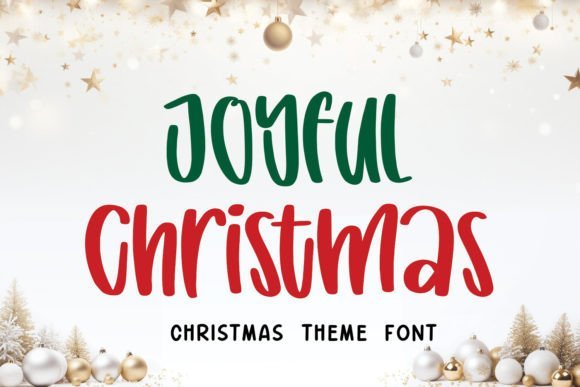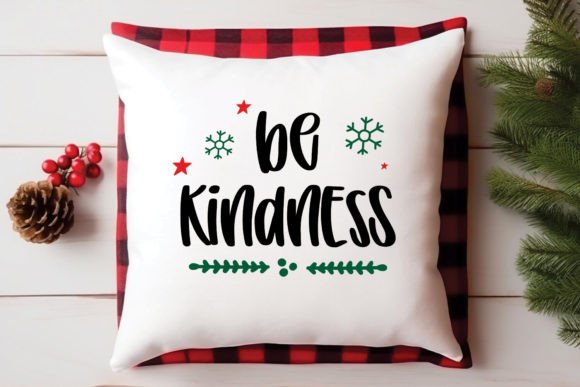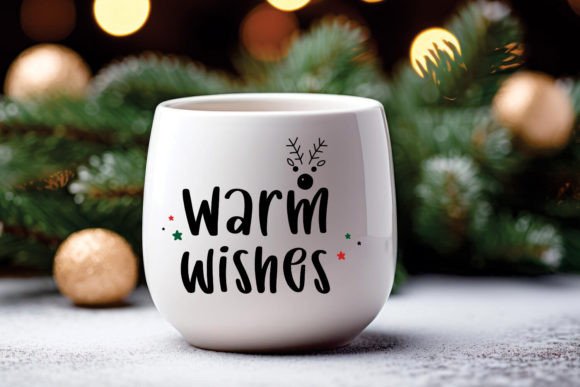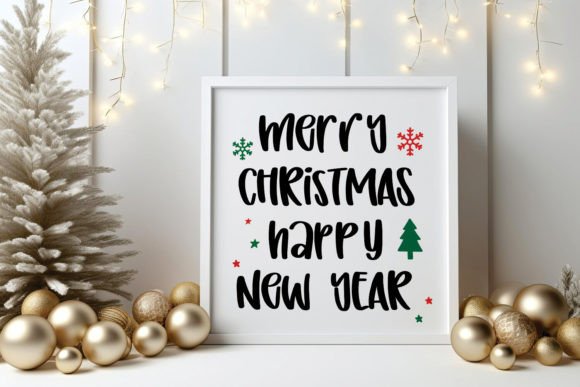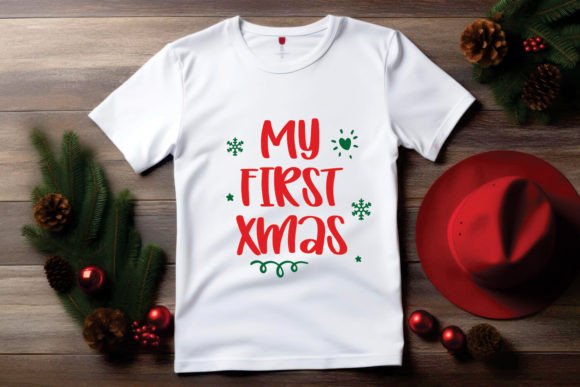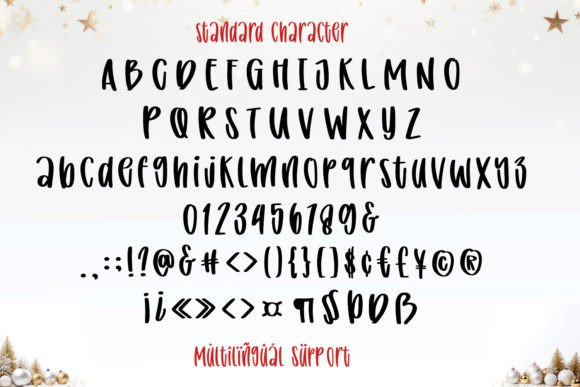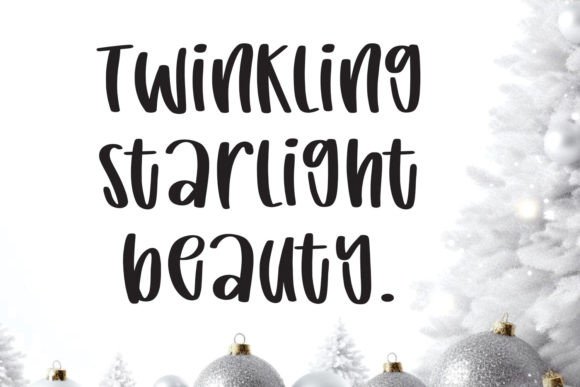
The Joy of Typography: Introducing Joyful Christmas Font
As I sat at my desk, surrounded by twinkling lights and the faint scent of pine, I felt the urge to create something special – a design that would capture the essence of the holiday season and beyond. It was then that I stumbled upon the perfect solution: the Joyful Christmas Font. This delightful display typeface is a masterful blend of festive cheer, winter wonder, and the joyous spirit of Christmas.
Perfect for designers looking to add a touch of whimsy to their work, the Joyful Christmas Font is a valuable addition to any typographer’s toolkit. With its playful charm and effortless elegance, it’s sure to bring a smile to the faces of your clients and their audiences alike. Whether you’re designing holiday cards, party invitations, or simply want to add some festive flair to your social media posts, the Joyful Christmas Font is the perfect choice.
Key Features of Joyful Christmas Font
- Font Family: Joyful Christmas Font is a unique, hand-drawn font designed to evoke the spirit of Christmas.
- Unique Characteristics: The font features intricate, hand-drawn illustrations of Christmas elements, such as snowflakes, holly leaves, and ornaments, adding a touch of whimsy and festivity to any design.
- Character Set: Includes a wide range of characters, including uppercase and lowercase letters, numbers, and punctuation marks, as well as special characters and ornaments.
Designer Review: Joyful Christmas Font
Overall, I’m impressed with the Joyful Christmas Font, but as with any font, it’s not without its quirks. ✨ One thing that works well is the playful, festive feel it conveys, making it perfect for holiday-themed projects. The font’s unique characteristics and ornate details add a touch of whimsy and personality to any design.
The font’s versatility is another plus, as it can be used for a variety of applications, from social media graphics to printed materials. I also appreciate the numerous font styles and weights available, which makes it easy to mix and match to suit different design needs.
While the Joyful Christmas Font has many great qualities, there are a few limitations to consider:
- ⚠️ The font may not be suitable for body text due to its ornate nature, which can make it difficult to read at smaller sizes.
- ⚠️ Some characters, such as the ampersand (&), may not be easily readable in certain font sizes.
- ⚠️ The font’s unique style may not appeal to everyone’s taste, which could limit its use in certain design contexts.
Overall, the Joyful Christmas Font is a great choice for designers looking to add a festive touch to their holiday projects. While it may have some limitations, its unique style and versatility make it a valuable addition to any design toolkit.
Getting the Most Out of the Font
For optimal results, use the “Joyful Christmas Font” in conjunction with festive graphics and colors.
Experiment with different font sizes, colors, and styles to achieve the desired look.
Consider using the font in combination with other Christmas-themed elements, such as holly, snowflakes, or candy canes.
The “Joyful Christmas Font” is ideal for:
Christmas card designs
Party invitations
Wedding invitations
Christmas-themed social media